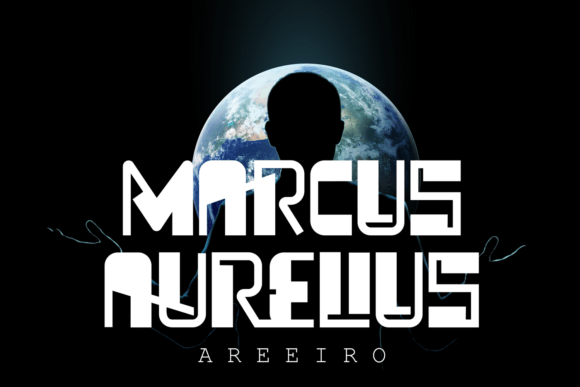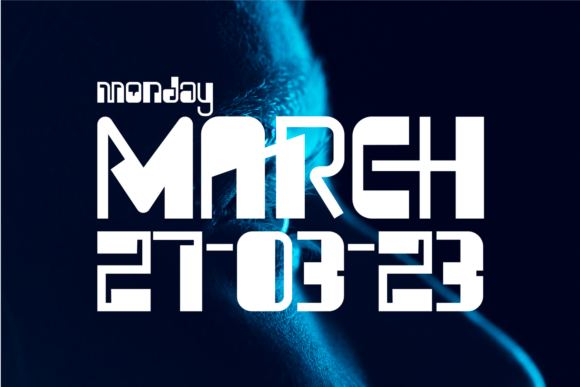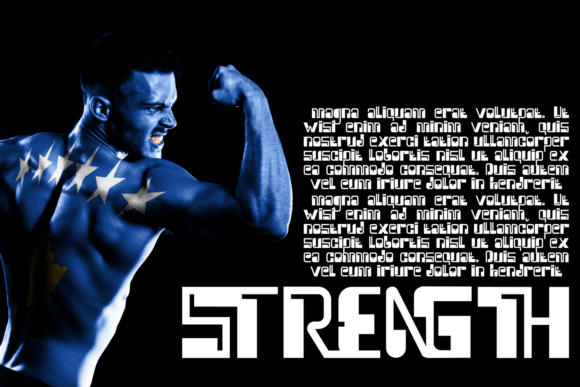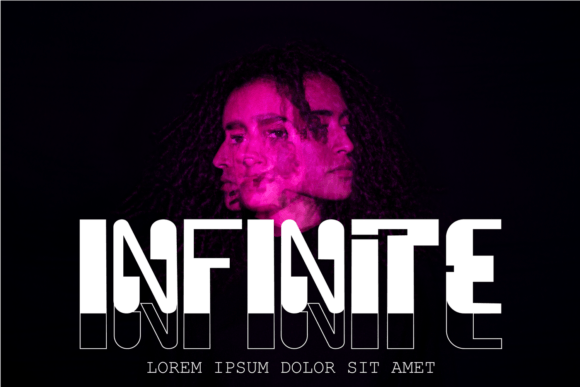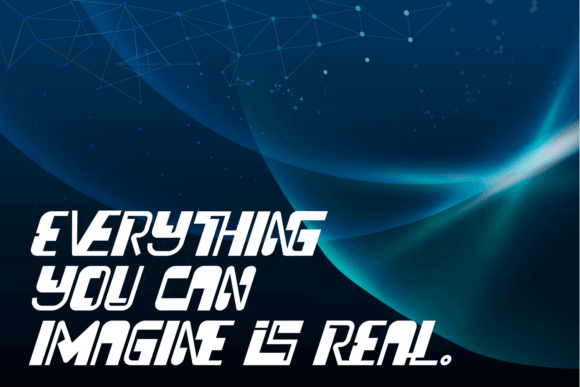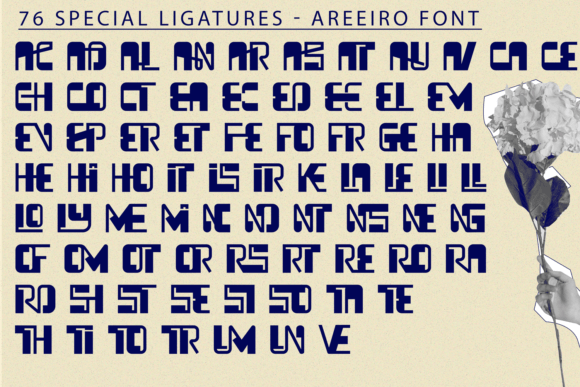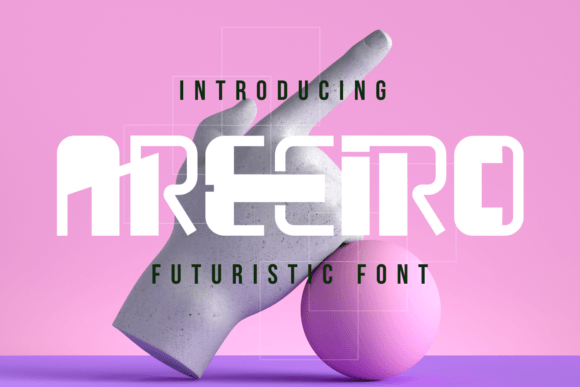
Areeiro Font: Elevate Your Designs with a Futuristic Twist
In the realm of typography, fonts play a crucial role in conveying the tone and aesthetic of a design. For creatives seeking to infuse their projects with a modern and cutting-edge vibe, Areeiro Font emerges as an exceptional choice. This futuristic display font seamlessly blends sleek and sharp lines with bold and dramatic curves, yielding a sophisticated and technologically advanced look.
The Essence of Areeiro Font
Areeiro Font is characterized by its modern and minimalist design, which exudes a sense of innovation and forward-thinking. Its unique fusion of sharp and curved lines creates a visually striking effect, making it perfect for designs that demand attention. The font’s clean and uncluttered aesthetic ensures that it can be effortlessly paired with a wide range of design elements, from bold graphics to subtle textures.
Ideal Applications for Areeiro Font
Areeiro Font’s versatility and futuristic appeal make it an ideal choice for various design projects, including:
- Branding: Establish a strong and modern brand identity with Areeiro Font, perfect for tech startups, innovative companies, and forward-thinking businesses.
- Product Packaging: Elevate your product packaging with a bold and eye-catching font that communicates innovation and sophistication.
- Advertising: Grab attention and make a lasting impression with Areeiro Font’s dramatic and bold curves, ideal for print and digital ads.
- Web Design: Enhance your website’s visual appeal with Areeiro Font, perfect for headers, titles, and other design elements that require a modern touch.
Why Choose Areeiro Font?
Areeiro Font offers several benefits that make it an attractive choice for designers and crafters:
- Unique and Memorable: Areeiro Font’s futuristic design ensures that your projects stand out and leave a lasting impression on your audience.
- Highly Versatile: The font’s clean and minimalist design makes it adaptable to various design styles, from bold and dramatic to subtle and elegant.
- Easy to Read: Despite its bold and futuristic appearance, Areeiro Font remains highly legible, making it suitable for body text and headlines.
Tips for Using Areeiro Font Effectively
To maximize the impact of Areeiro Font, consider the following tips:
- Pair with Contrasting Fonts: Combine Areeiro Font with serif or script fonts to create a visually appealing contrast.
- Experiment with Colors: Areeiro Font looks stunning in bold and bright colors, but also try subtle gradients and pastel shades for a softer look.
- Play with Scale: Use Areeiro Font in various sizes to create visual hierarchy and emphasize key design elements.
Areeiro Font is a game-changing typographic asset for designers and crafters seeking to infuse their projects with a futuristic and modern twist. Its unique blend of sharp and curved lines, combined with its clean and minimalist design, makes it an ideal choice for a wide range of applications. By incorporating Areeiro Font into your design toolkit, you’ll be able to create stunning and attention-grabbing projects that showcase your creativity and expertise.